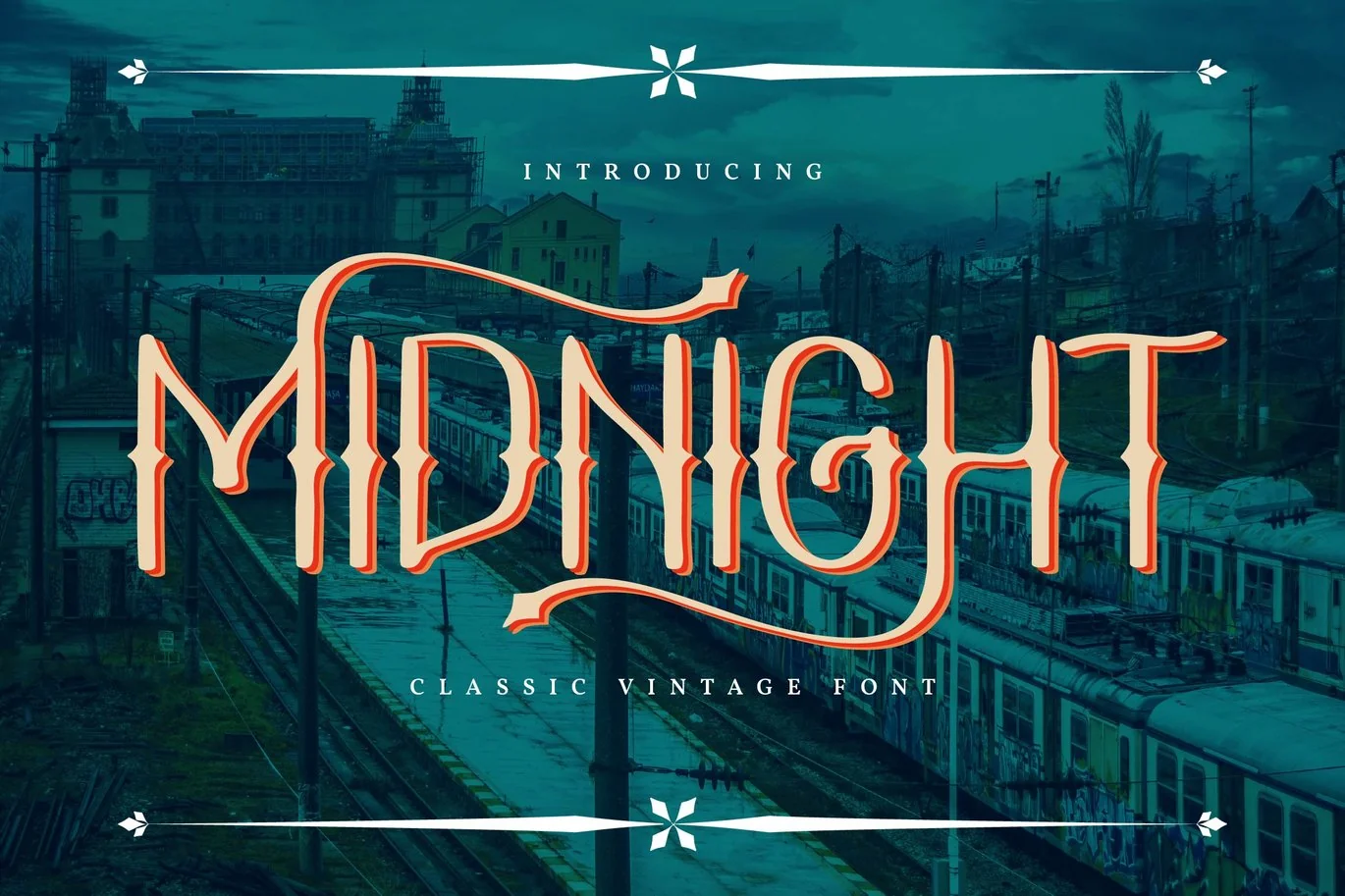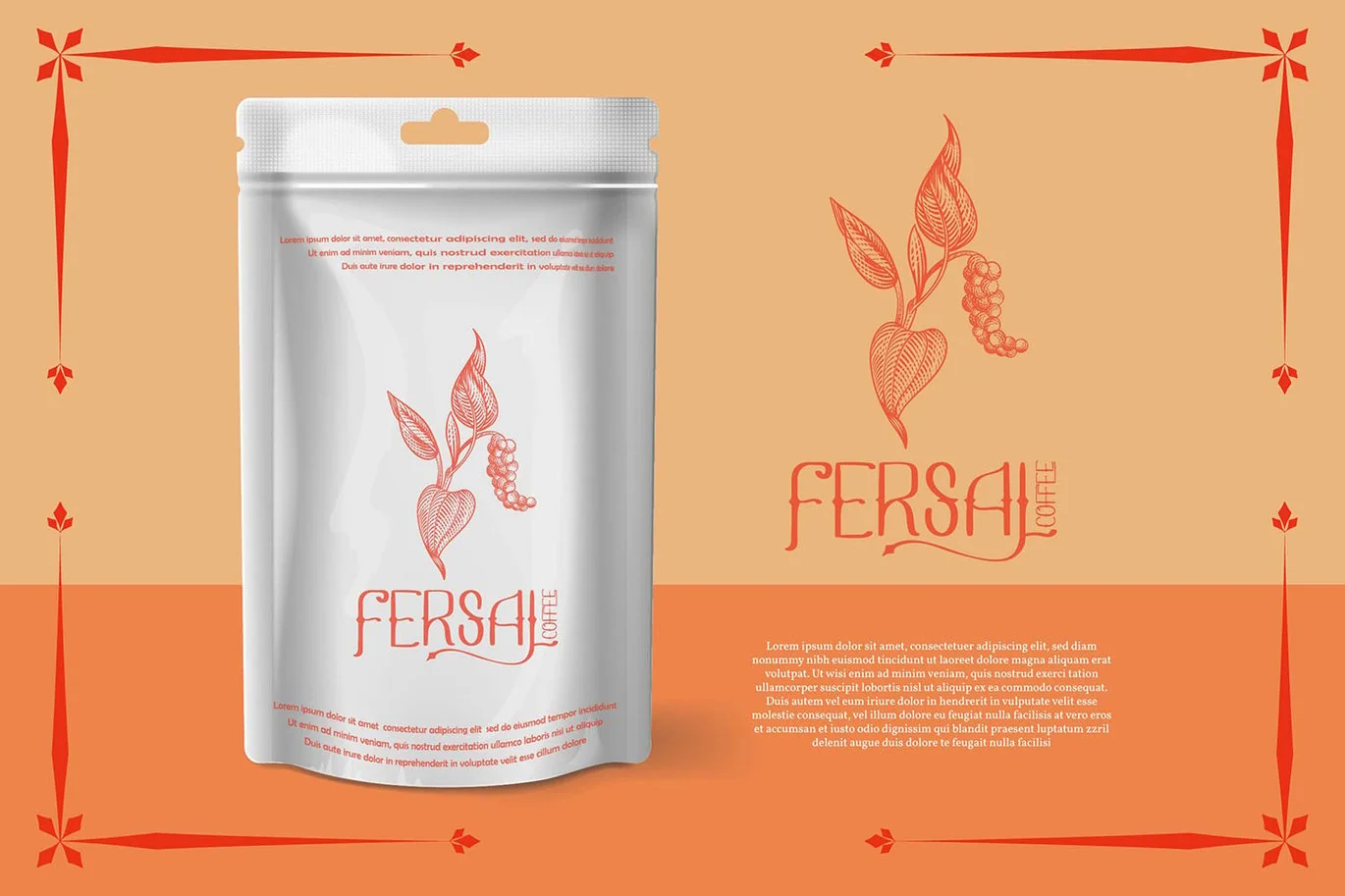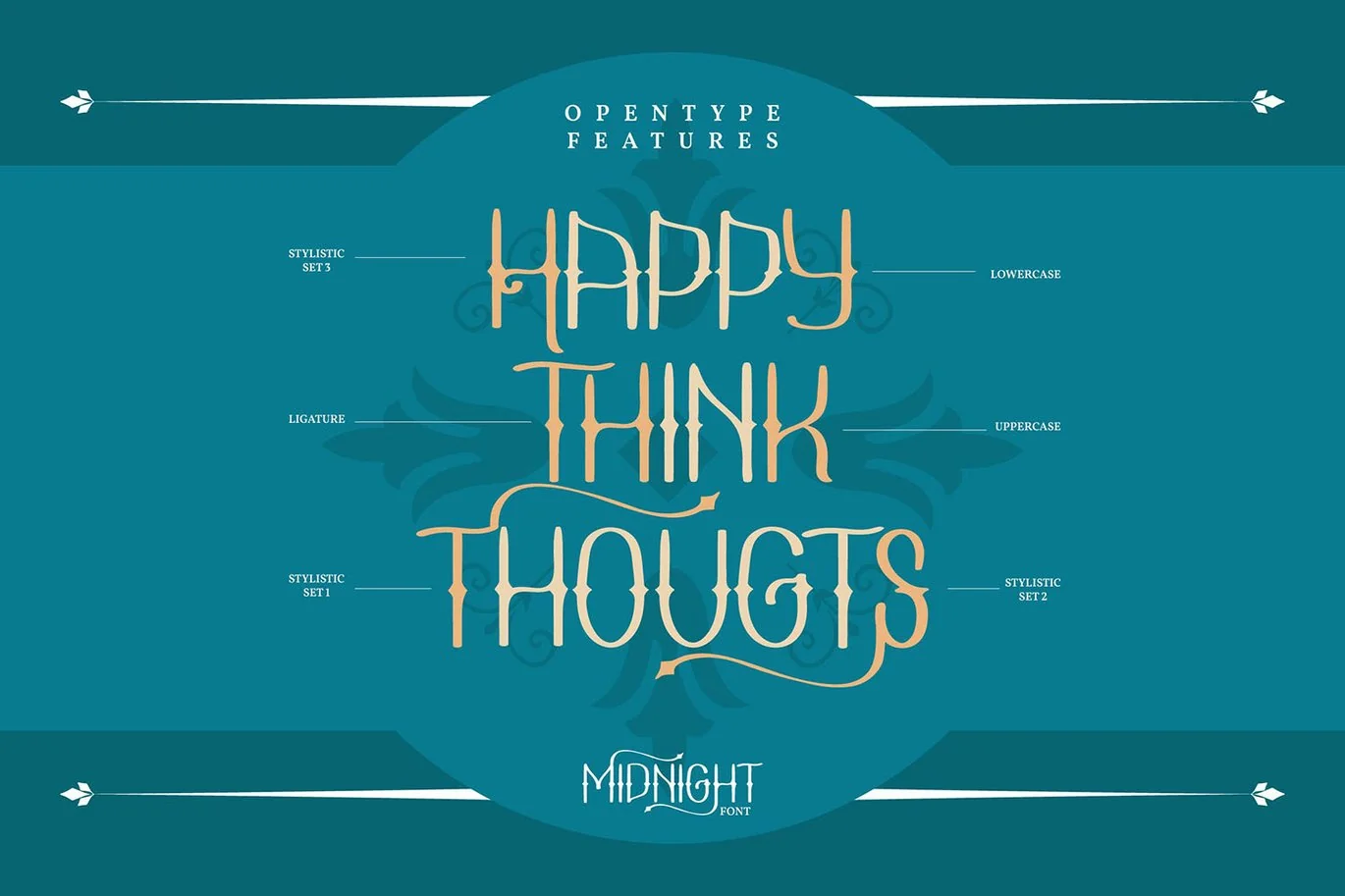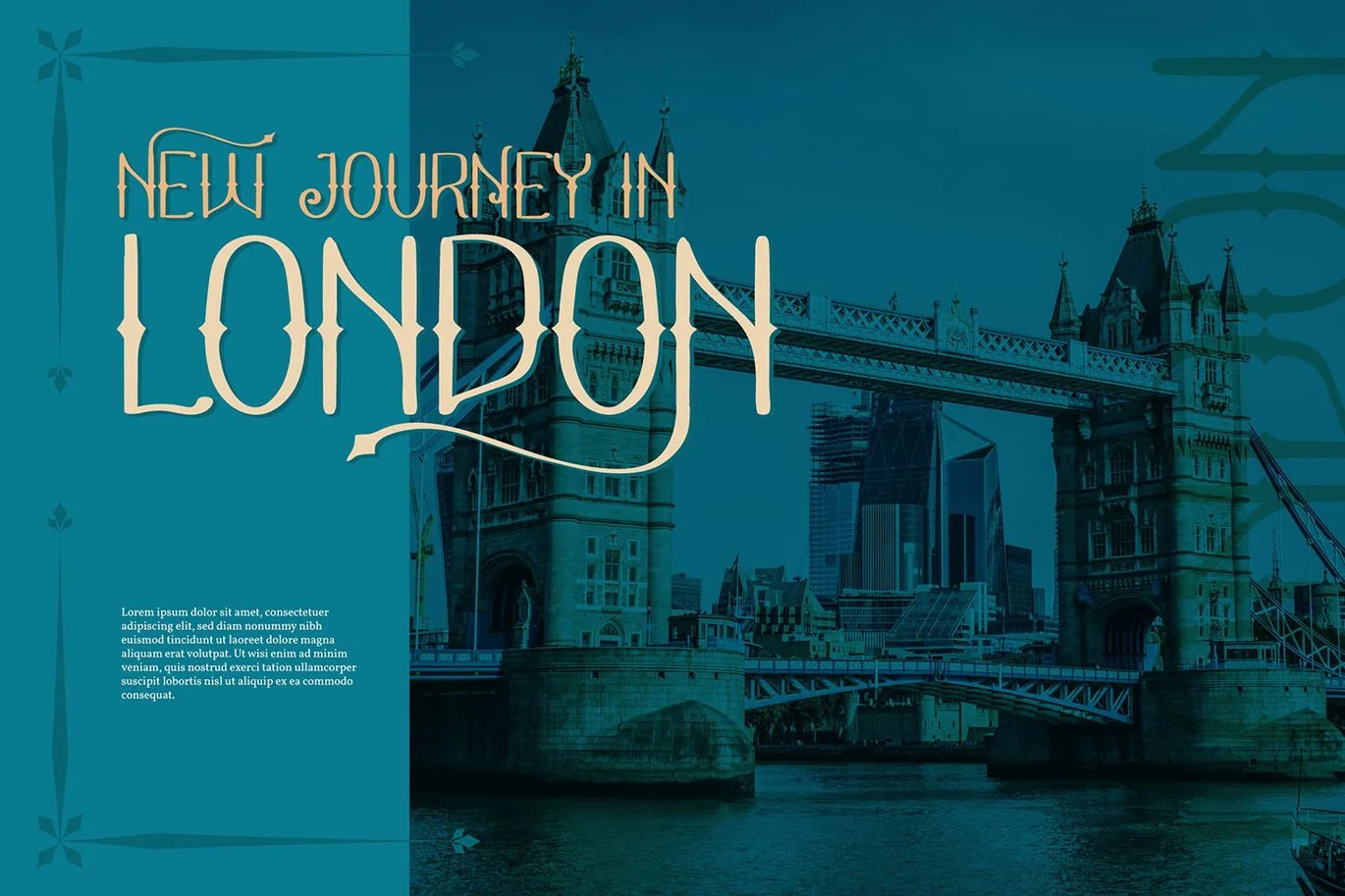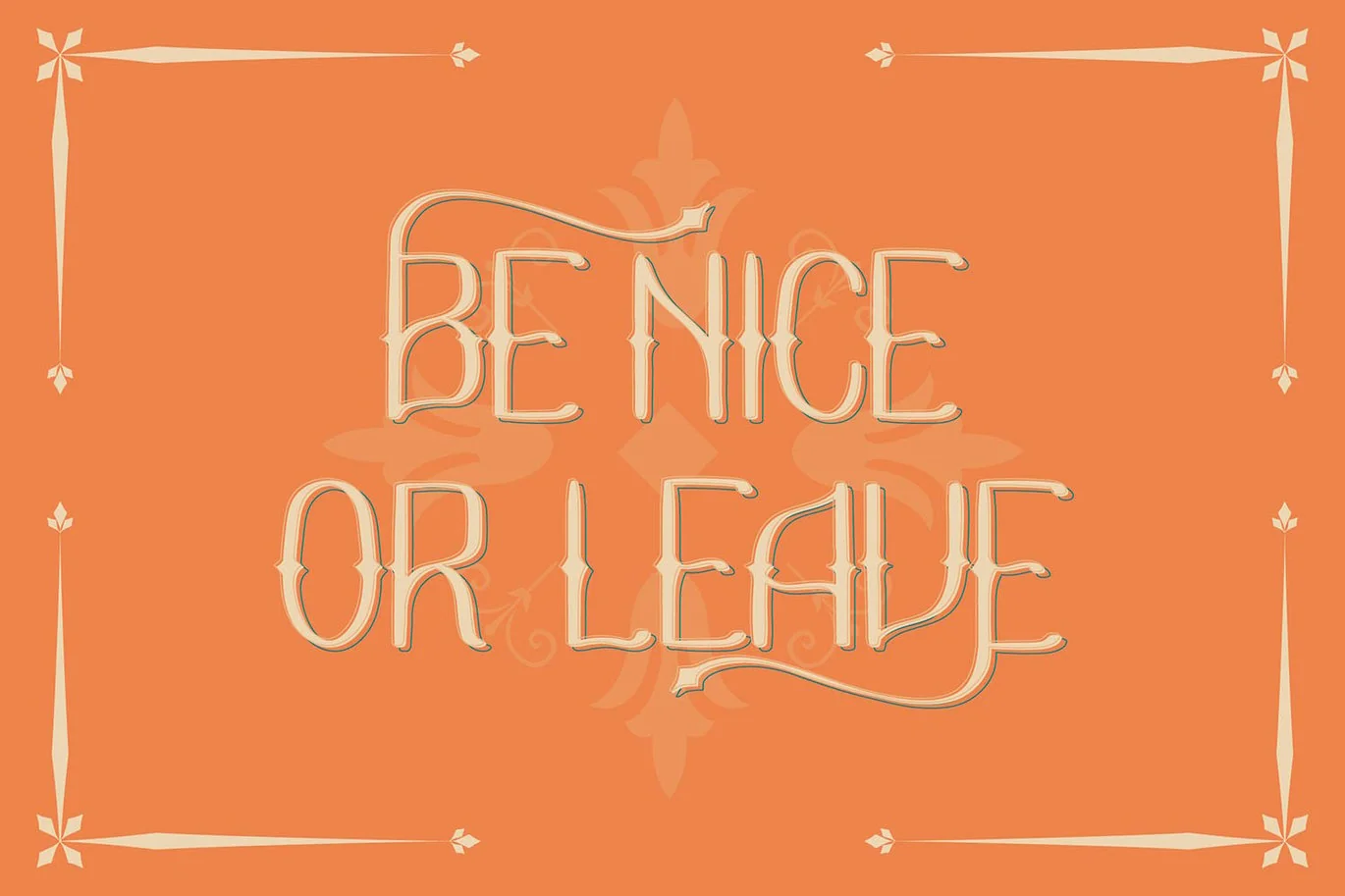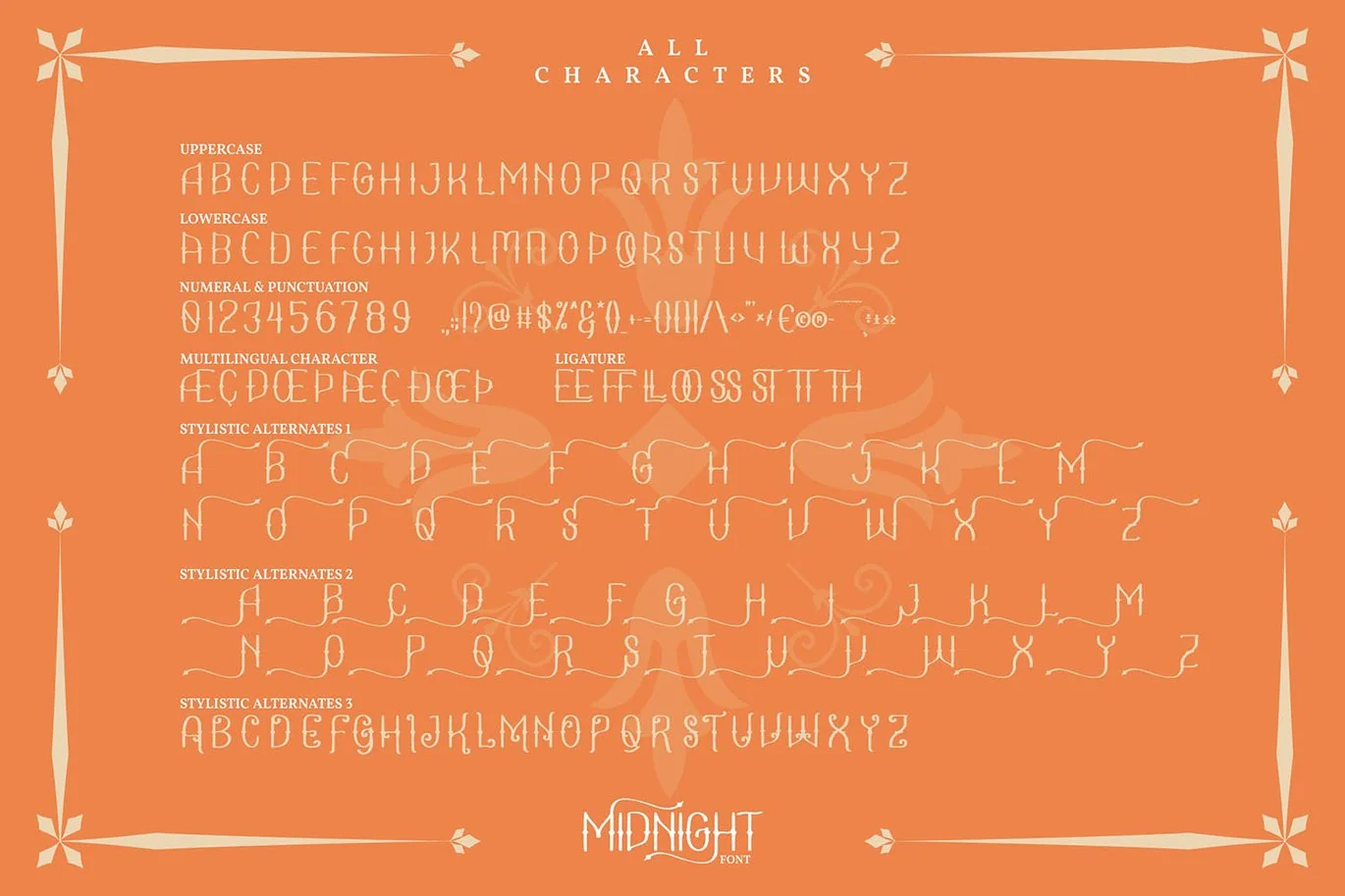
Midnight | Classic Vintage Font
Midnight | Classic Vintage Font with a calligraphy style, So beautiful on invitation like greeting cards, branding materials, business cards, quotes, posters, and more!